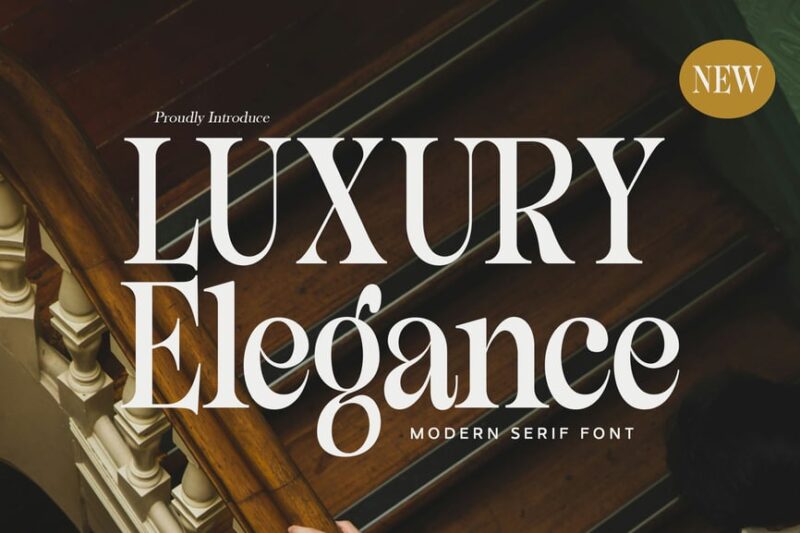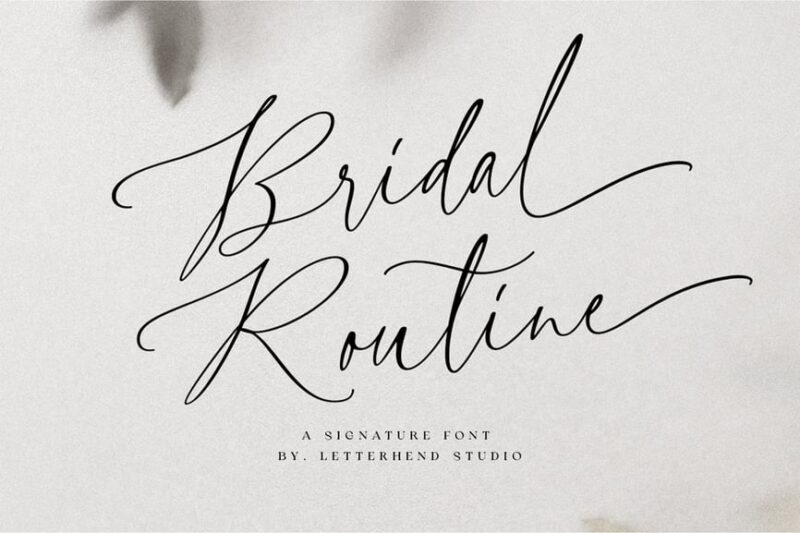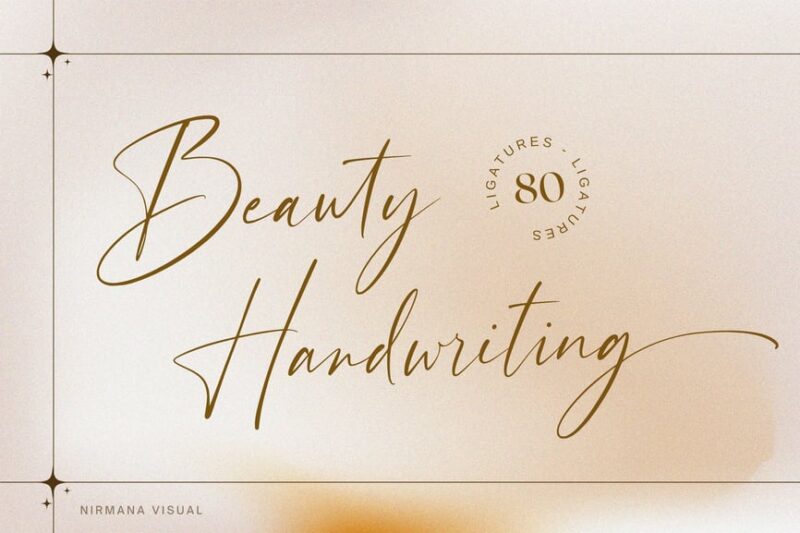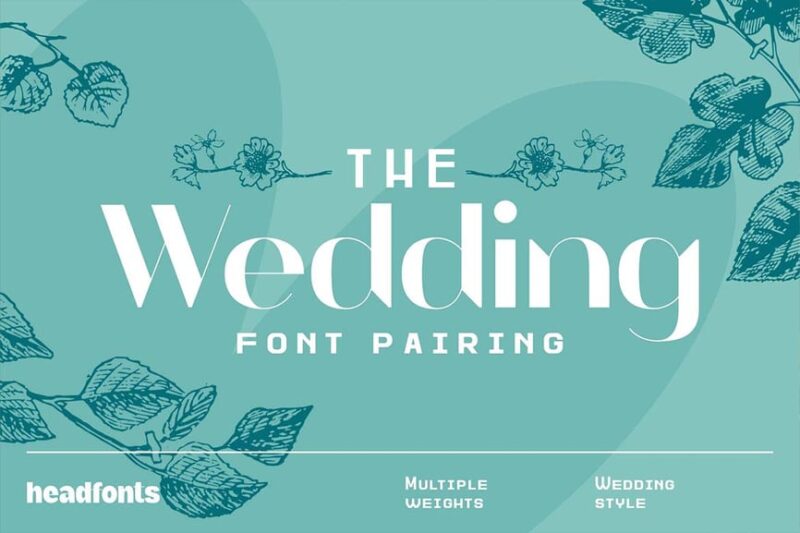
Choosing the right typeface for your wedding isn’t just about picking something pretty (though that certainly helps). It’s about setting the tone for your entire celebration before guests even arrive. From save-the-dates to ceremony programs, from table numbers to thank-you cards, the fonts you select become the visual voice of your love story.
And here’s the thing – with thousands of wedding fonts available, the selection process can feel overwhelming. Should you go with a delicate script that whispers romance? A bold serif that commands attention? A modern sans-serif that feels fresh and contemporary?
In this comprehensive guide, we’ll walk through everything you need to know about wedding fonts. We’ll explore the best options for 2026, discuss when to use different styles, share expert pairing techniques, and help you avoid common typography pitfalls. Whether you’re planning a rustic barn wedding, an elegant ballroom affair, or a beachside celebration, we’ve got the perfect font recommendations to match your vision.
So grab your favorite beverage, settle in, and let’s dive into the beautiful world of wedding typography!
The Most Gorgeous Wedding Fonts of 2026
Not all wedding fonts are created equal. Some instantly evoke romance and elegance, while others might feel too casual or formal for the occasion. I’ve curated a collection of the most stunning wedding fonts that are making waves in 2026. Here’s what’s trending:
Married Typeface
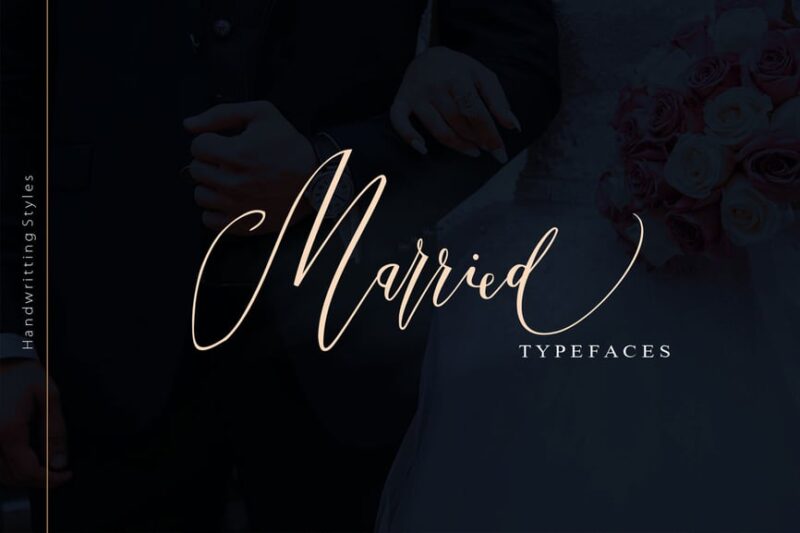
Married Typeface is a stunning wedding font that exudes elegance and romance. This script and handwritten style is perfect for creating beautiful wedding invitations, save-the-dates, and other nuptial-related designs that require a touch of sophistication.
Wedding Elegant Thin Swash – Finola
Finola is a delicate and graceful serif font ideal for wedding-related designs. Its thin swashes and elegant curves make it a top choice for Indian weddings or any event requiring a touch of refined beauty in typography.
Elanor – Cinematic Elegance Wedding Font
Elanor is a luxurious script font that brings cinematic elegance to wedding designs. This sophisticated typeface is perfect for high-end wedding invitations, signage, and other matrimonial elements that require a touch of Hollywood glamour.
Rustic Wedding – Organic Script
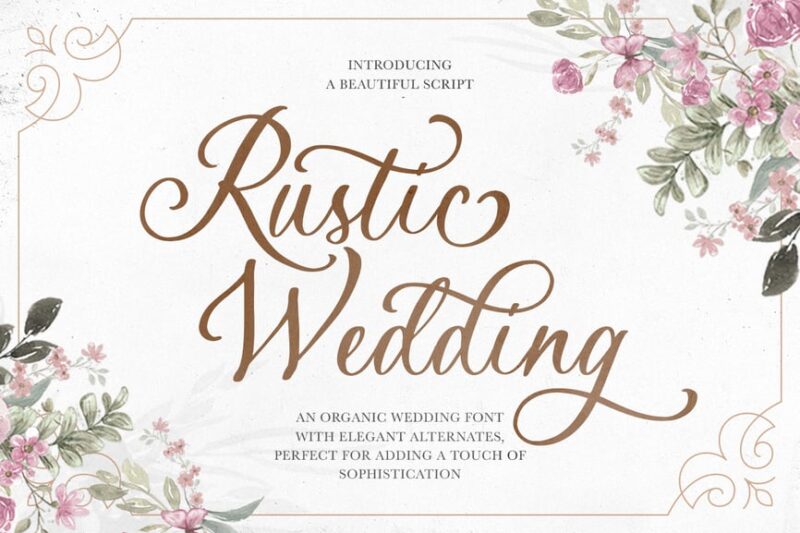
Rustic Wedding is an organic script font that captures the essence of countryside nuptials. This charming wedding font is ideal for creating invitations, menus, and decor for rustic-themed ceremonies and receptions, adding a touch of natural beauty to your designs.
Newly Bridal – A Wedding Font
Newly Bridal is a delightful script font designed specifically for wedding-related projects. This versatile wedding font works beautifully for invitations, place cards, and other nuptial stationery, offering a perfect blend of elegance and readability.
Wedding Script Font
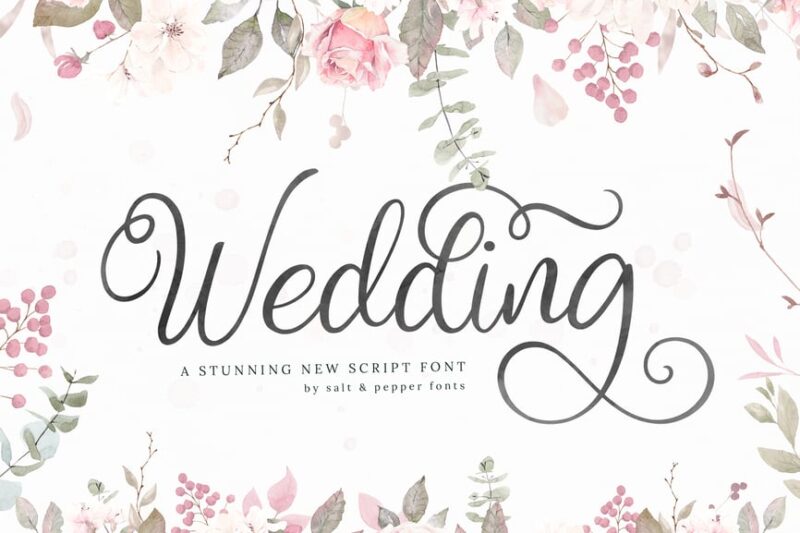
This Wedding Script Font is a classic choice for matrimonial designs. Its flowing curves and elegant ligatures make it an excellent option for creating beautiful wedding invitations, save-the-dates, and other nuptial-related typography needs.
Calligraphy Wedding Decor Font Delight
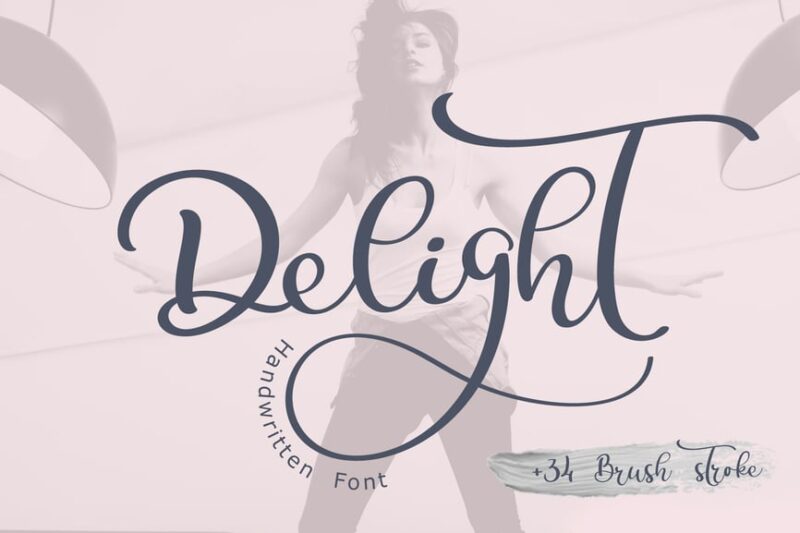
Delight is a decorative calligraphy font perfect for wedding decor and stationery. This versatile typeface includes floral elements, making it ideal for creating unique and eye-catching designs for nuptial events and invitations.
Honeymoon – Wedding Font
Honeymoon is a romantic script font designed with weddings in mind. This charming typeface is perfect for creating invitations, thank-you cards, and other matrimonial stationery that requires a touch of love and elegance.
Wedding Font Pairing
This Wedding Font Pairing offers a curated selection of typefaces perfect for nuptial designs. The combination of fonts provides versatility for creating cohesive and beautiful wedding invitations and related stationery.
NCL Nostalgic Wedding – Script Romantic Font
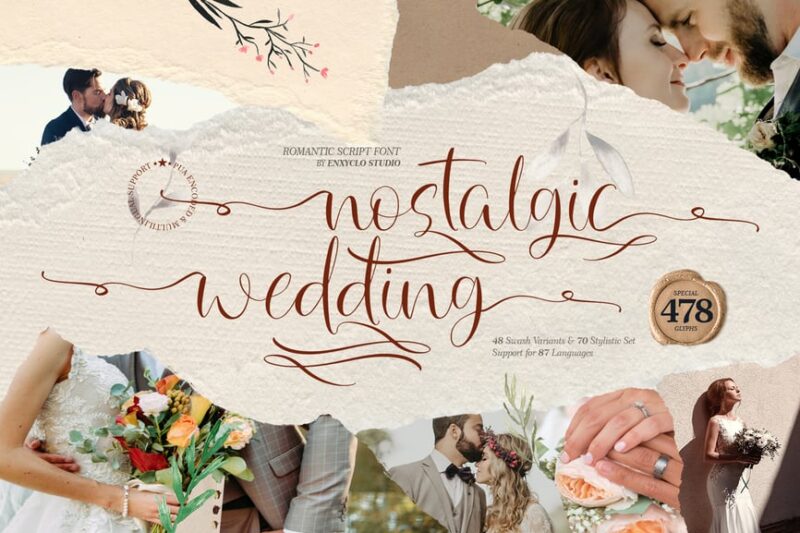
NCL Nostalgic Wedding is a romantic script font that evokes a sense of timeless love. This charming wedding typeface is perfect for creating invitations, save-the-dates, and other nuptial designs with a touch of vintage elegance.
Beautifully – Wedding Font
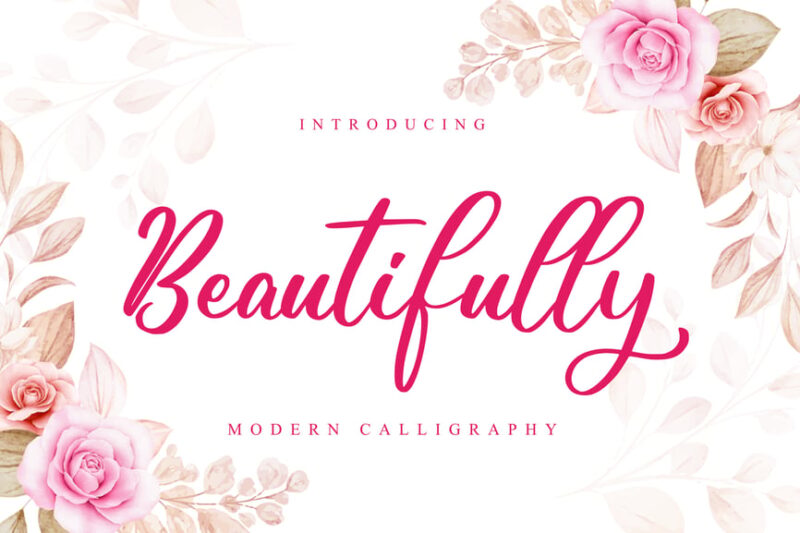
Beautifully is an elegant script font designed for wedding-related projects. This sophisticated typeface is perfect for creating stunning invitations, place cards, and other matrimonial stationery that requires a touch of grace and refinement.
Most importantly, have fun with the process! Typography is an art form, and your wedding stationery is a canvas for expressing your unique love story. Take time to explore options, experiment with pairings, and trust your instincts.
The perfect wedding fonts are out there waiting for you – typefaces that will make your heart skip a beat and perfectly capture the magic of your celebration. With the knowledge and inspiration from this guide, you’re well-equipped to find them.
Happy font hunting, and congratulations on your upcoming wedding!